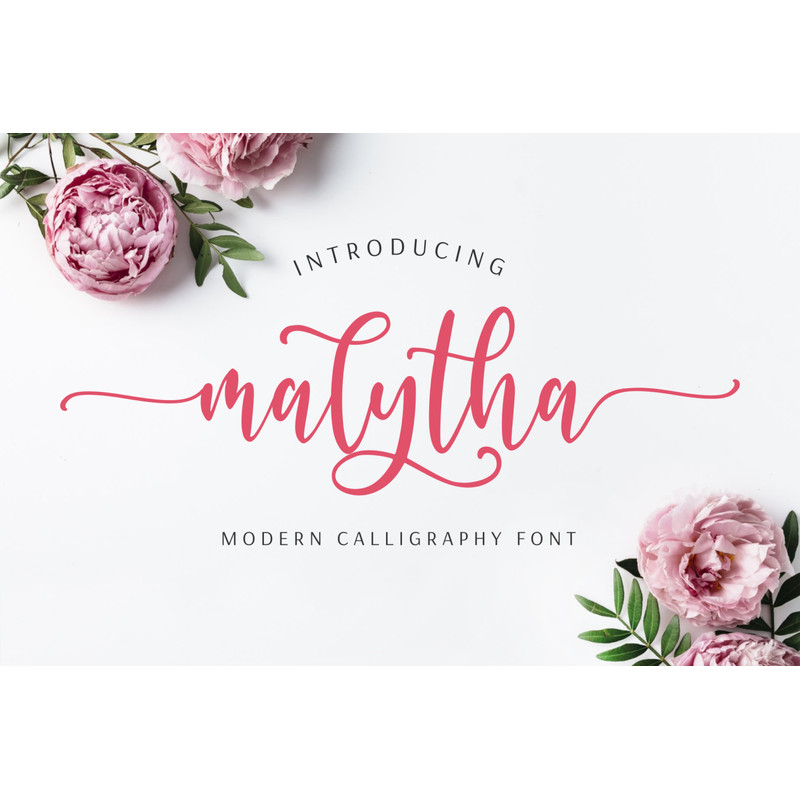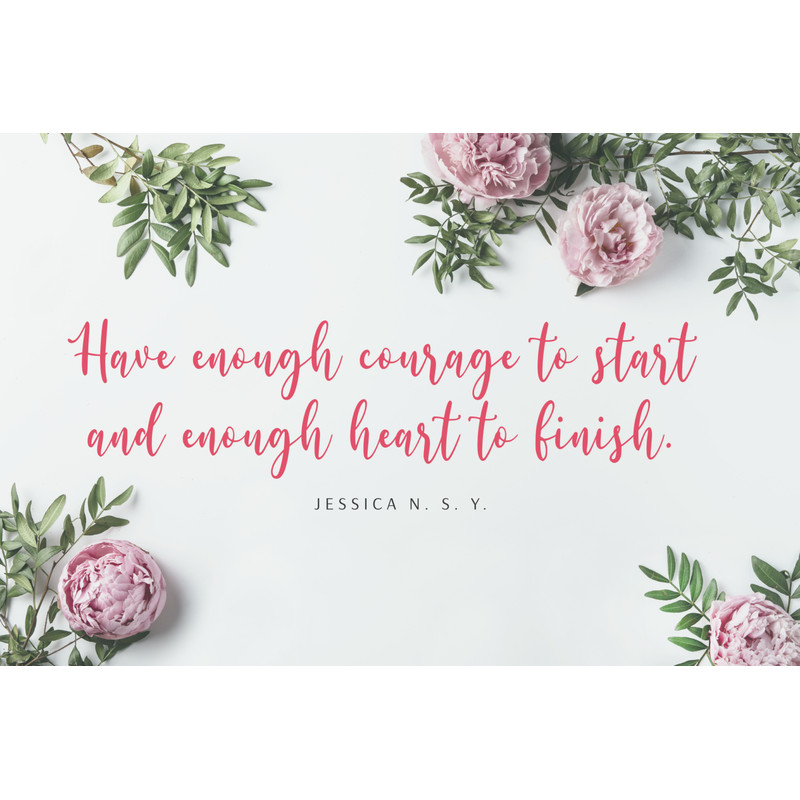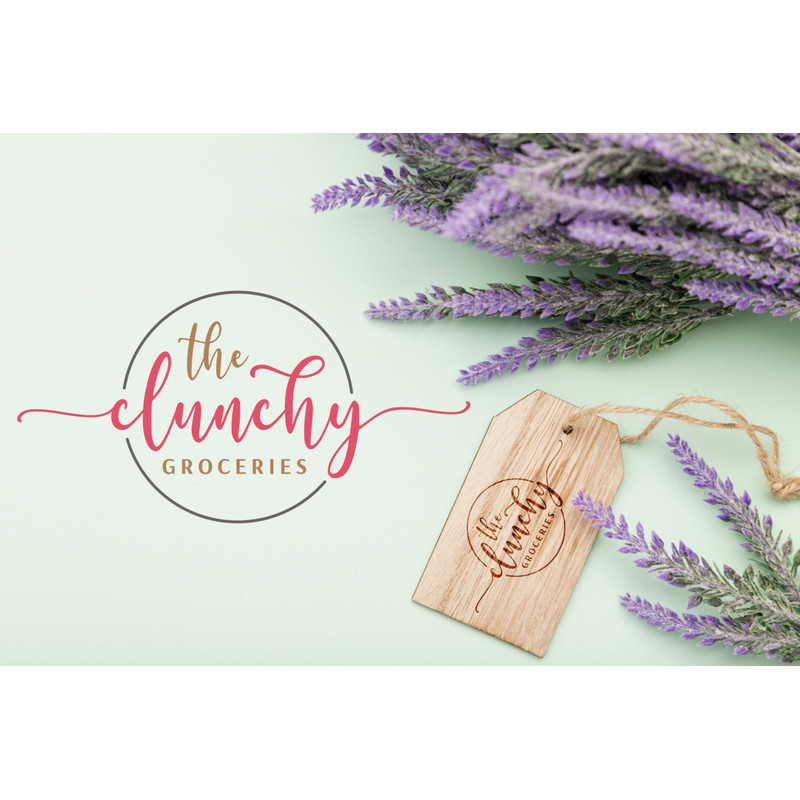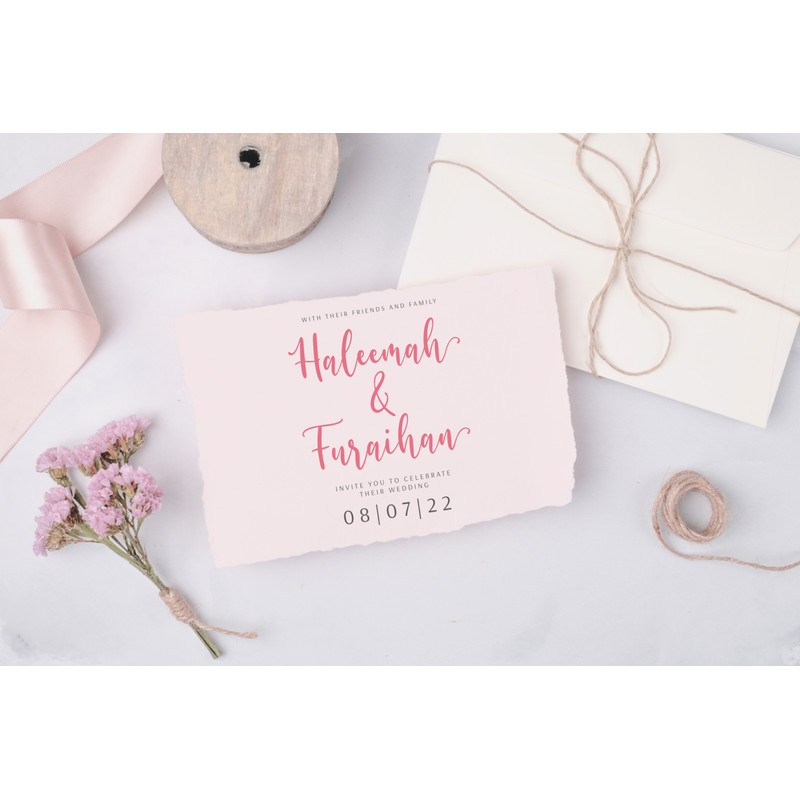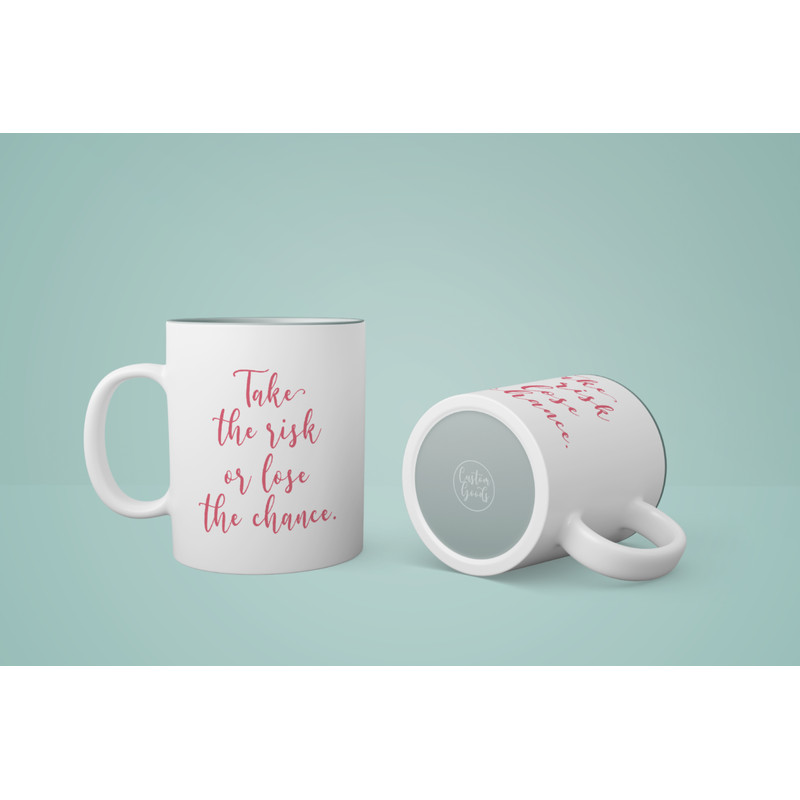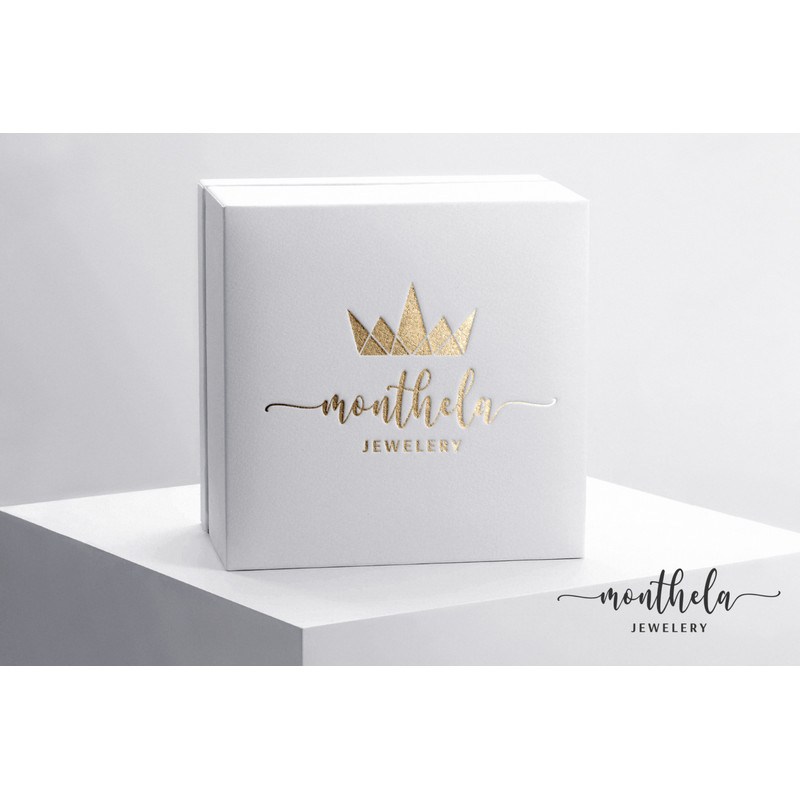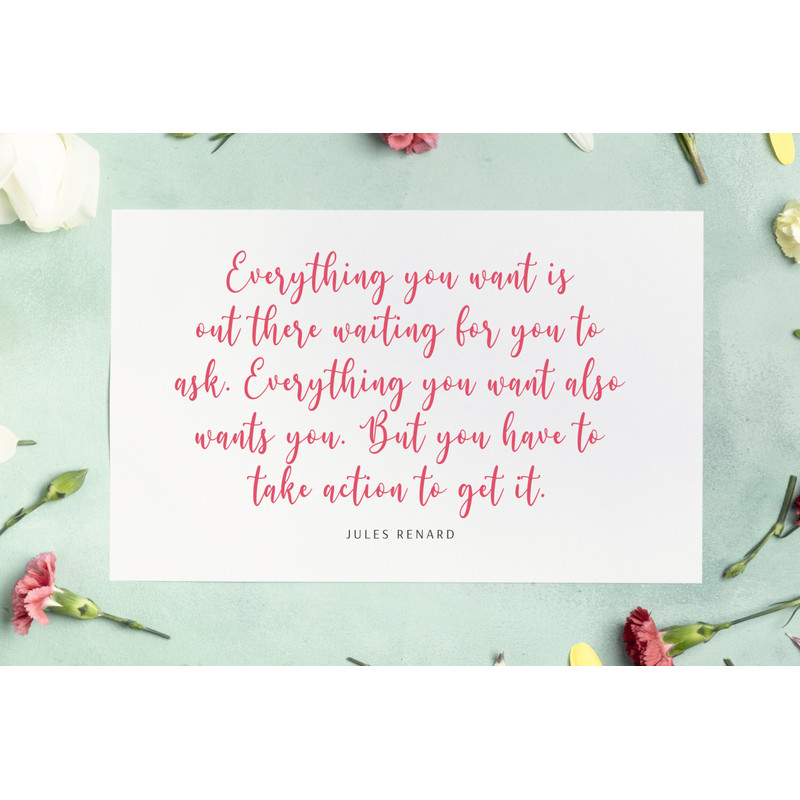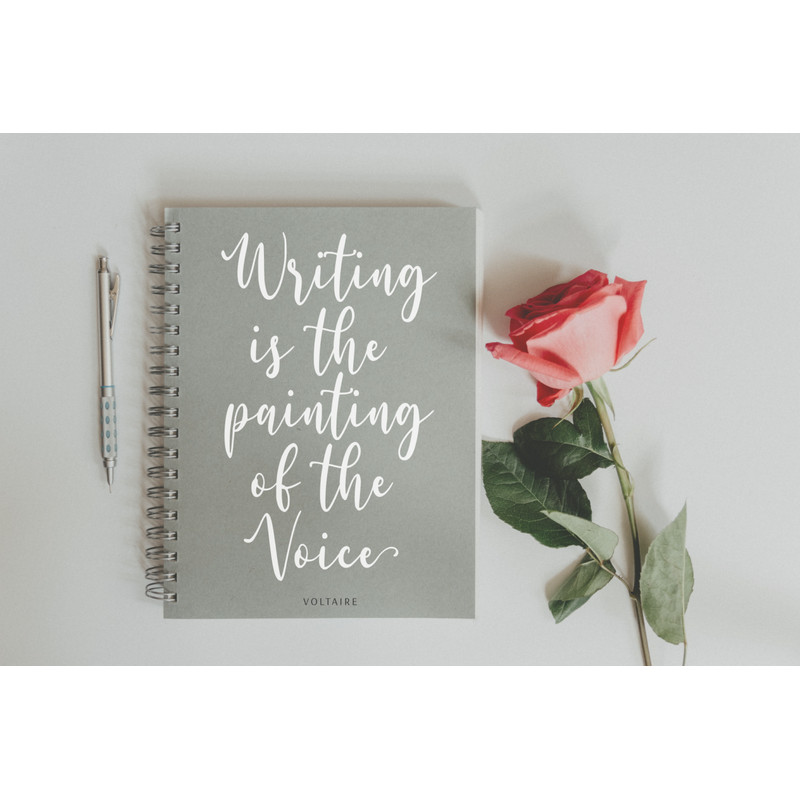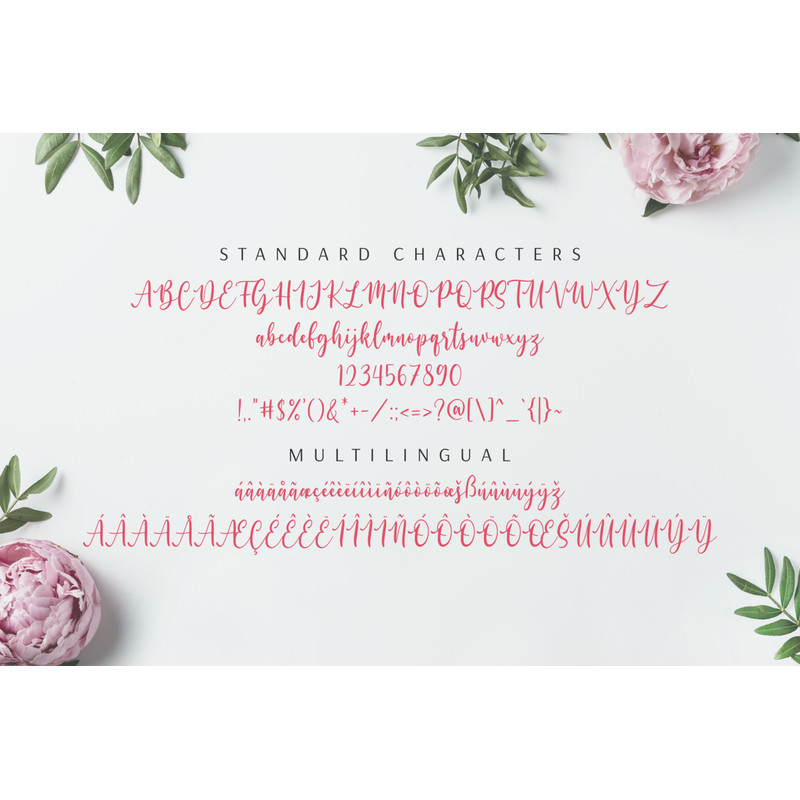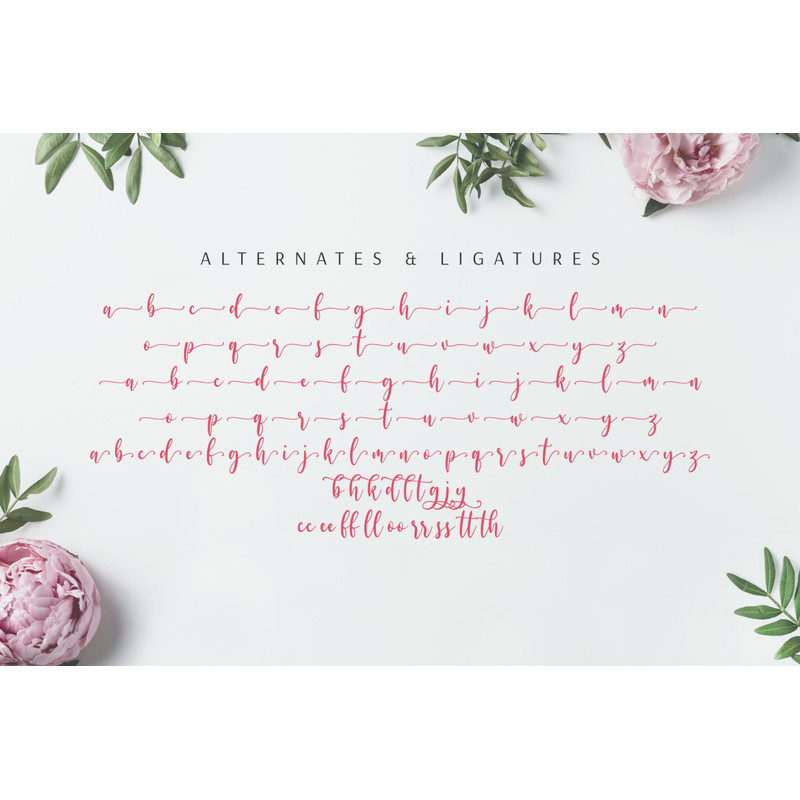
Malytha is a beautiful modern calligraphy font, carefully created to produce a natural shape and flow. It comes with several alternate and ligatures to make the font more charming and elegant.
Malytha is perfect for many different projects such as logos & branding, invitation, stationery, wedding designs, social media posts, advertisements, product packaging, product designs, label, photography, watermark, special events, or anything.
Alternates